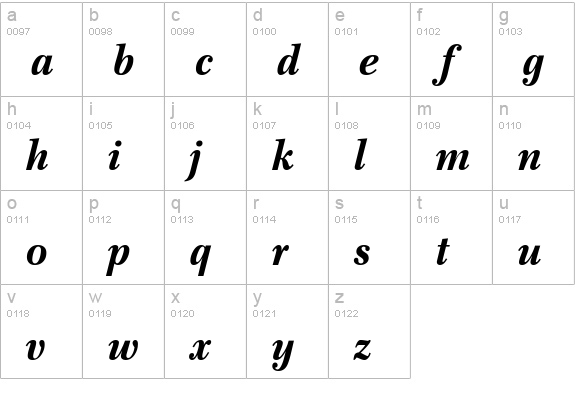
The F820-Roman-BoldItalic font is a stylish and versatile typeface that exudes a sense of sophistication and elegance. Its bold and italic design makes it perfect for adding a touch of flair to any project. The strong, clean lines of this font give it a modern and professional look, making it ideal for a wide range of design applications. The F820-Roman-BoldItalic font is not only visually appealing but also highly legible, making it a great choice for both print and digital materials. Whether you're working on a branding project, a poster design, or a website layout, this font will help your text stand out and make a lasting impression. Best of all, the F820-Roman-BoldItalic font is available for free download at FontsMarket.com. This means you can easily access and use this beautiful typeface in your projects without any cost. Don't miss out on the opportunity to enhance your designs with the F820-Roman-BoldItalic font today!